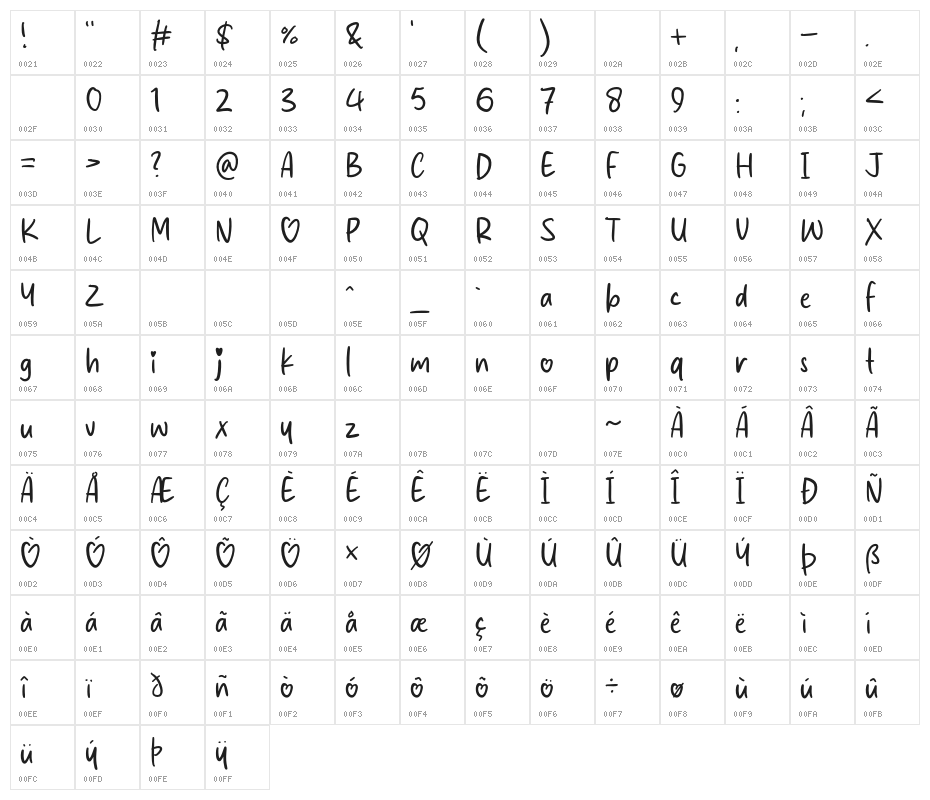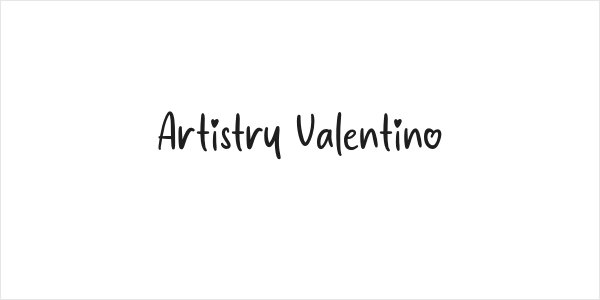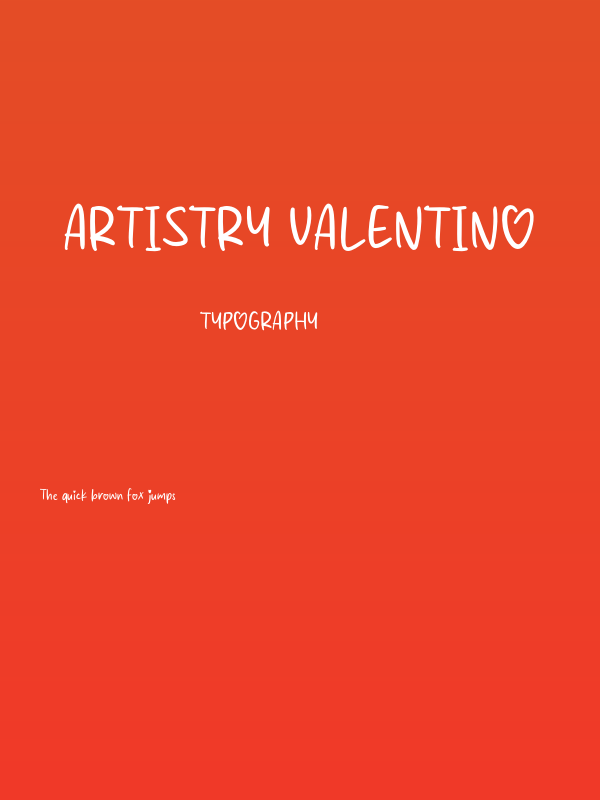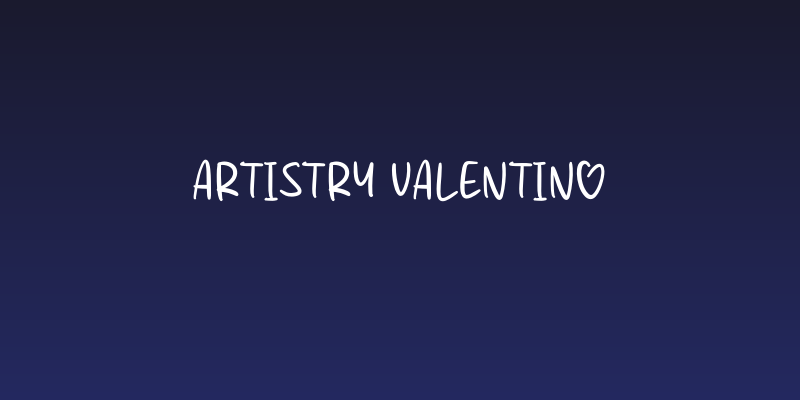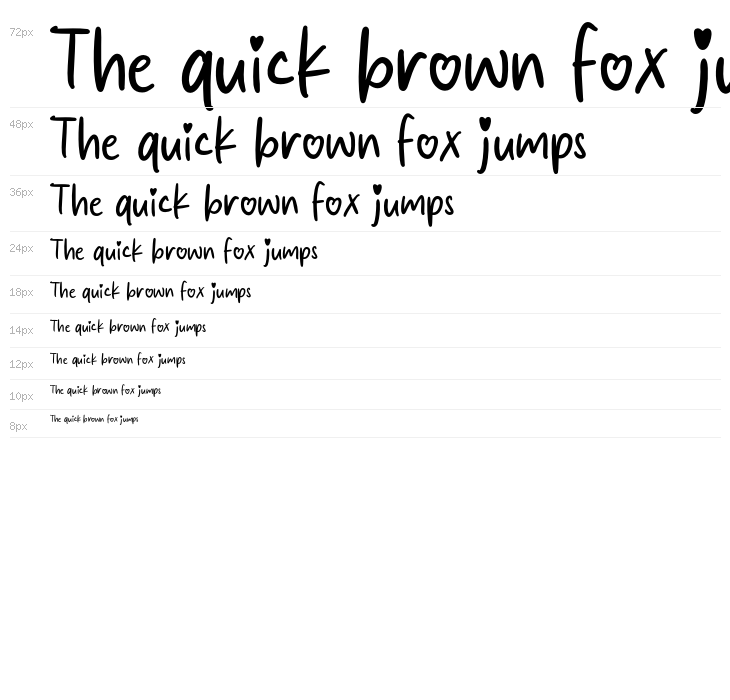
Artistry Valentino Font
Artistry Valentino Description
This font exudes a playful and casual handwritten style, characterized by its smooth, rounded edges and slightly irregular letterforms. The uppercase and lowercase letters maintain a consistent flow, with a charming, informal appearance that suggests a personal touch. The numbers and special characters are crafted with the same whimsical flair, making them blend seamlessly with the alphabet. The overall design is approachable and friendly, ideal for projects that require a human touch. Its legibility is enhanced by the moderate spacing between characters, ensuring clarity even in smaller sizes.
| Proposed Projects | Ideal for greeting cards, invitations, children's books, and personal branding. |